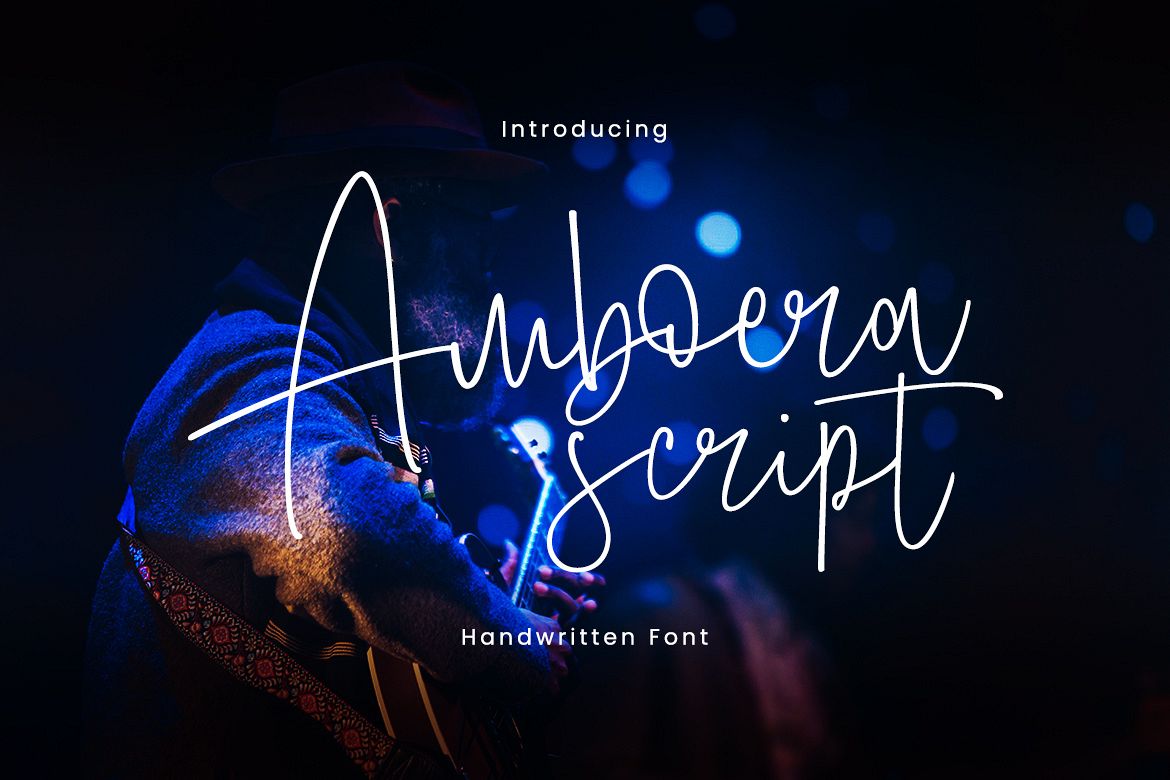
Amboera Script
Introducing: Amboera Script is a handwritten font. The style of handwriting and irregular but still elegant, and you will enjoy to use this font style.
Amboera Script is perfect for branding projects, homeware designs, product packaging - or simply as a stylish text overlay to any background image.